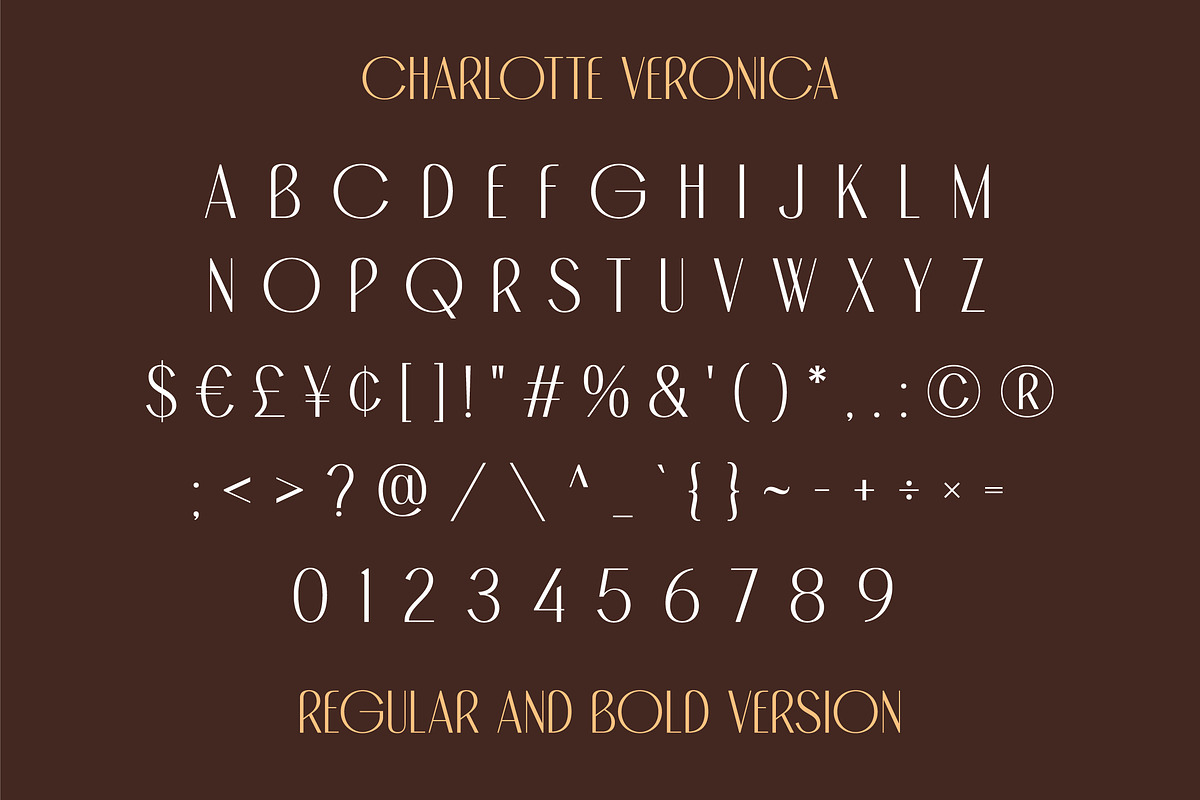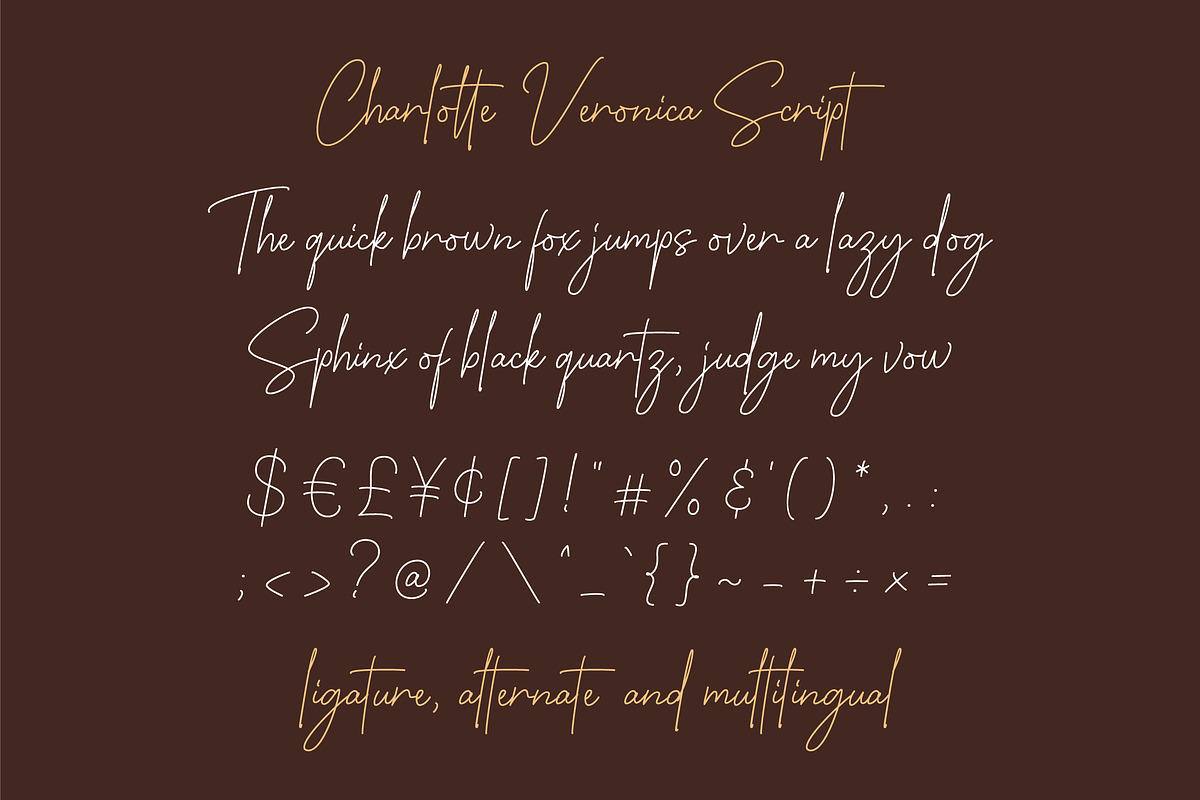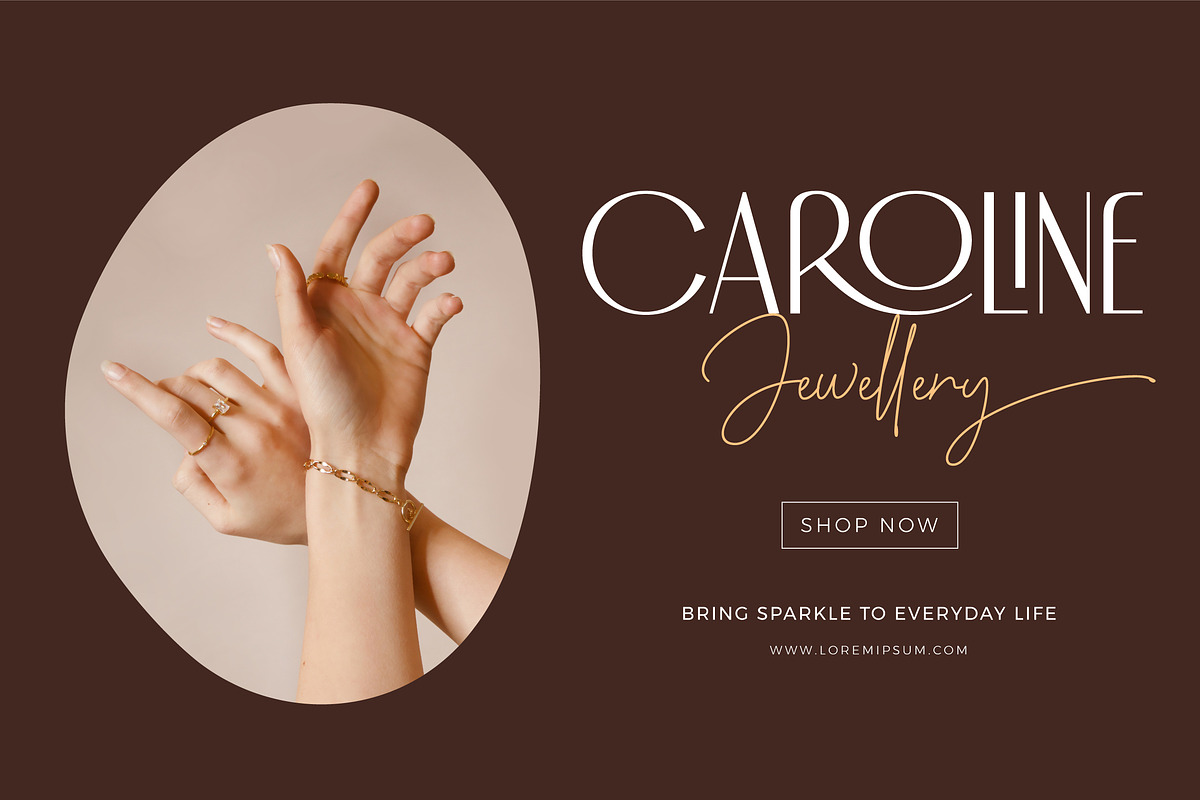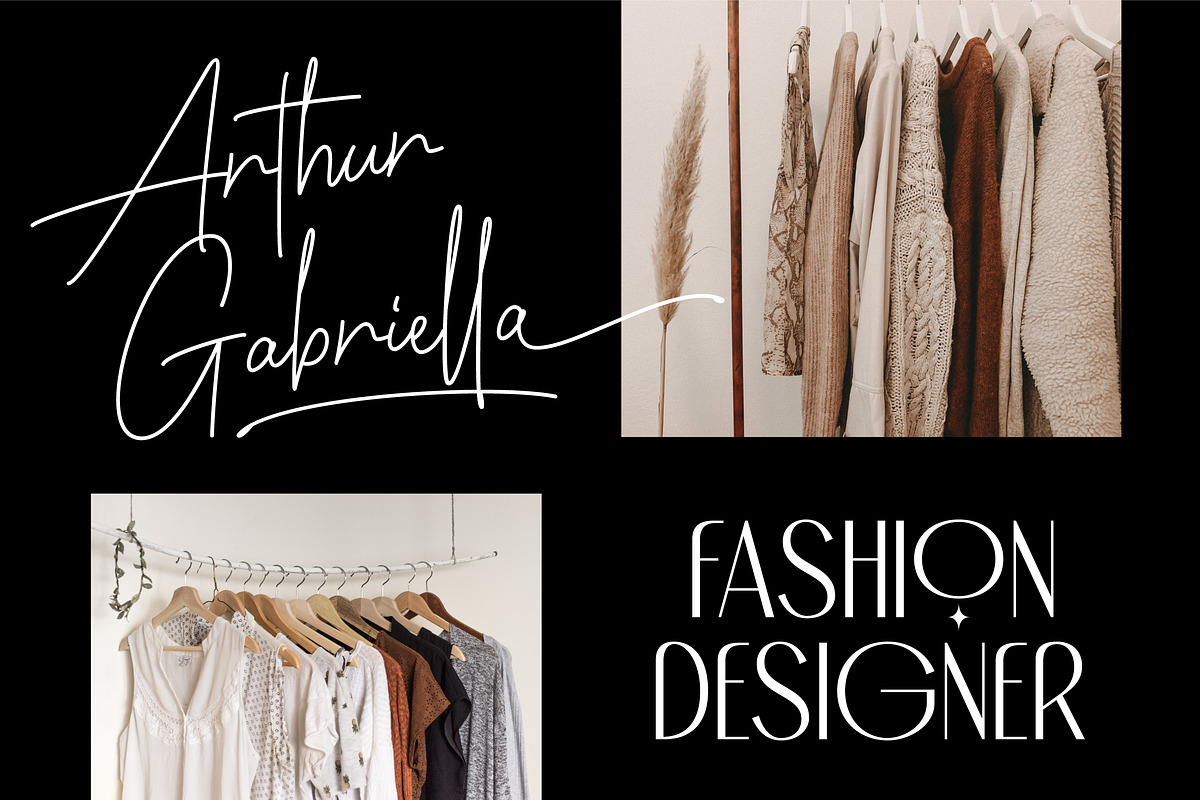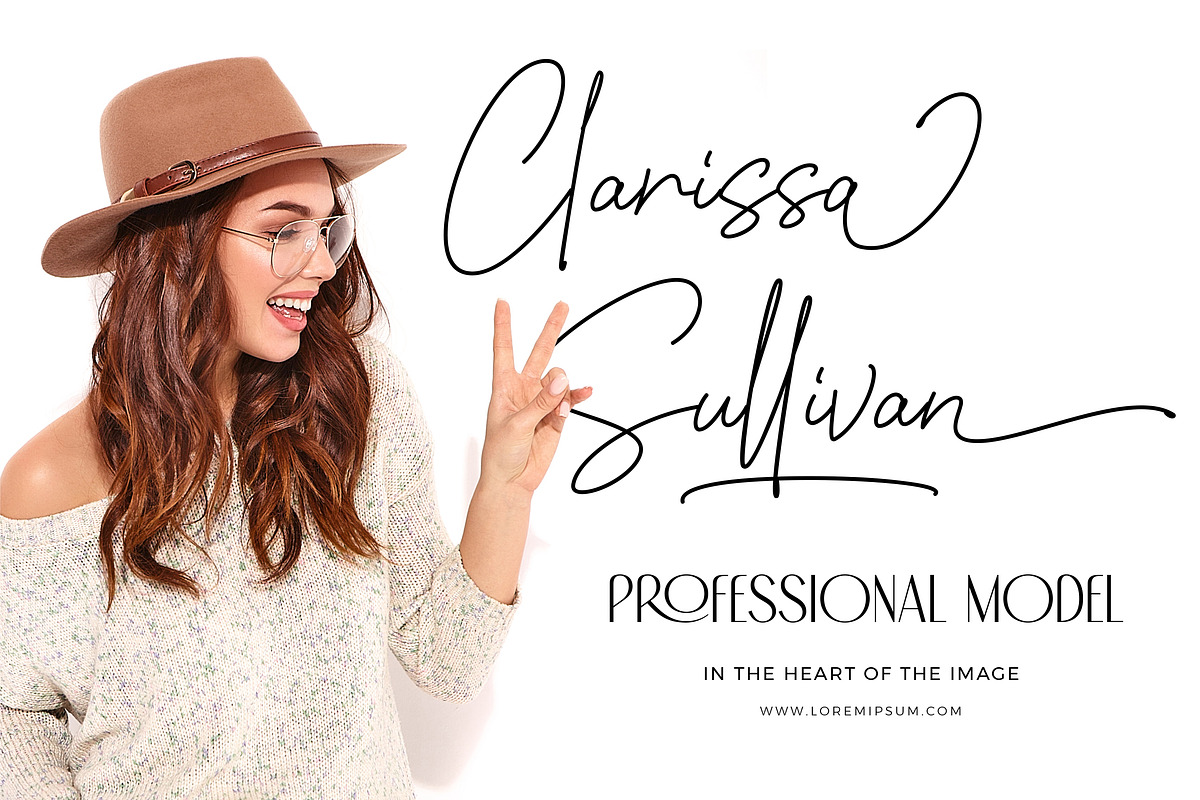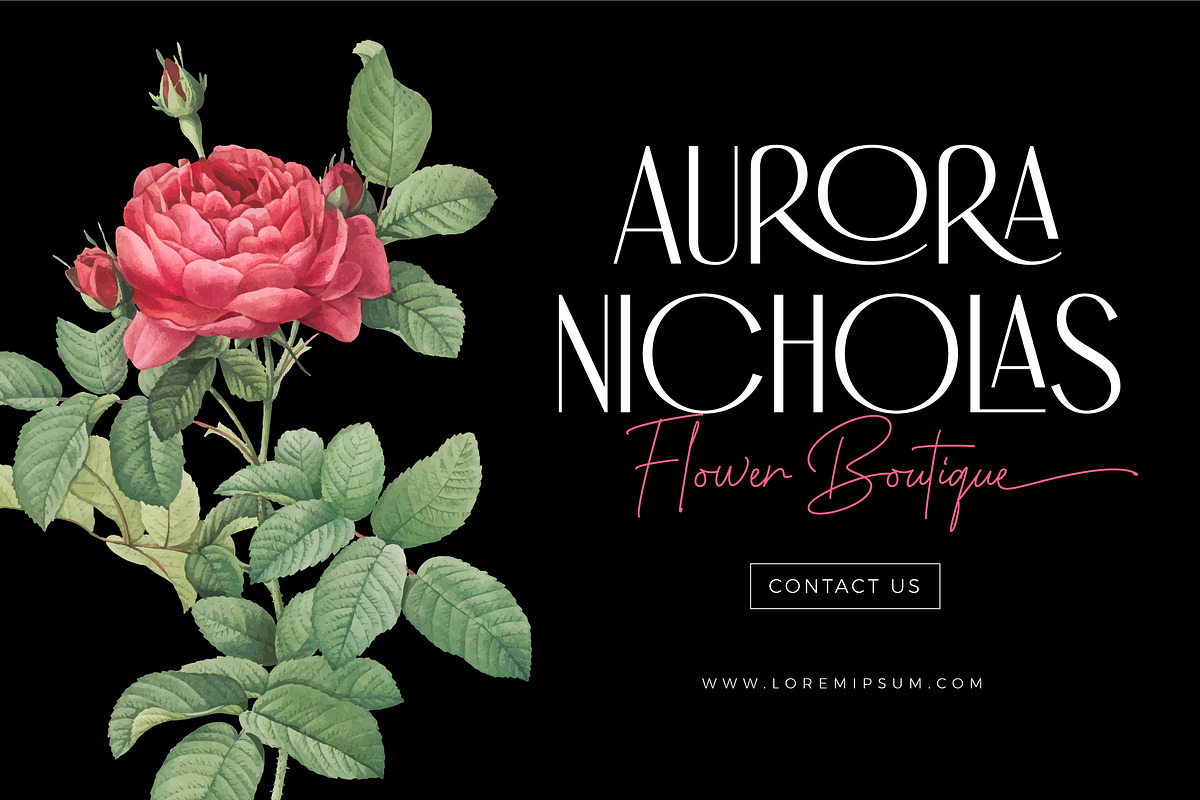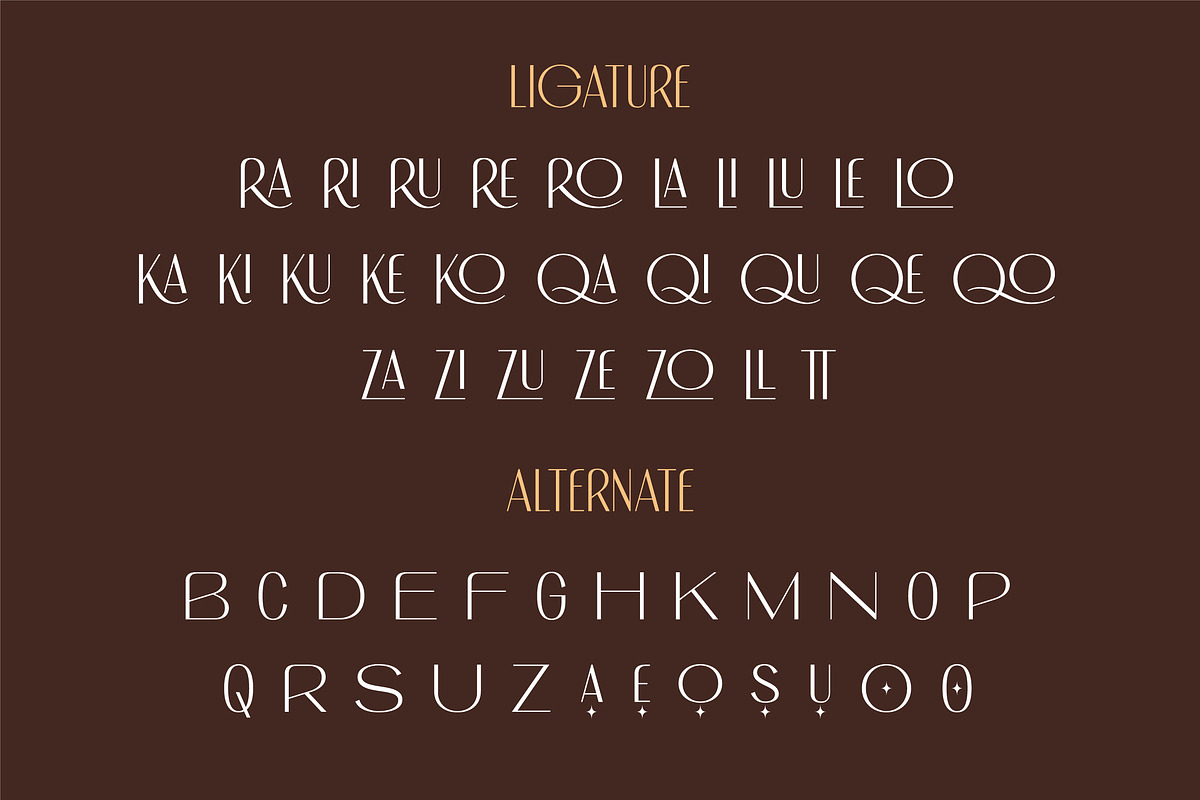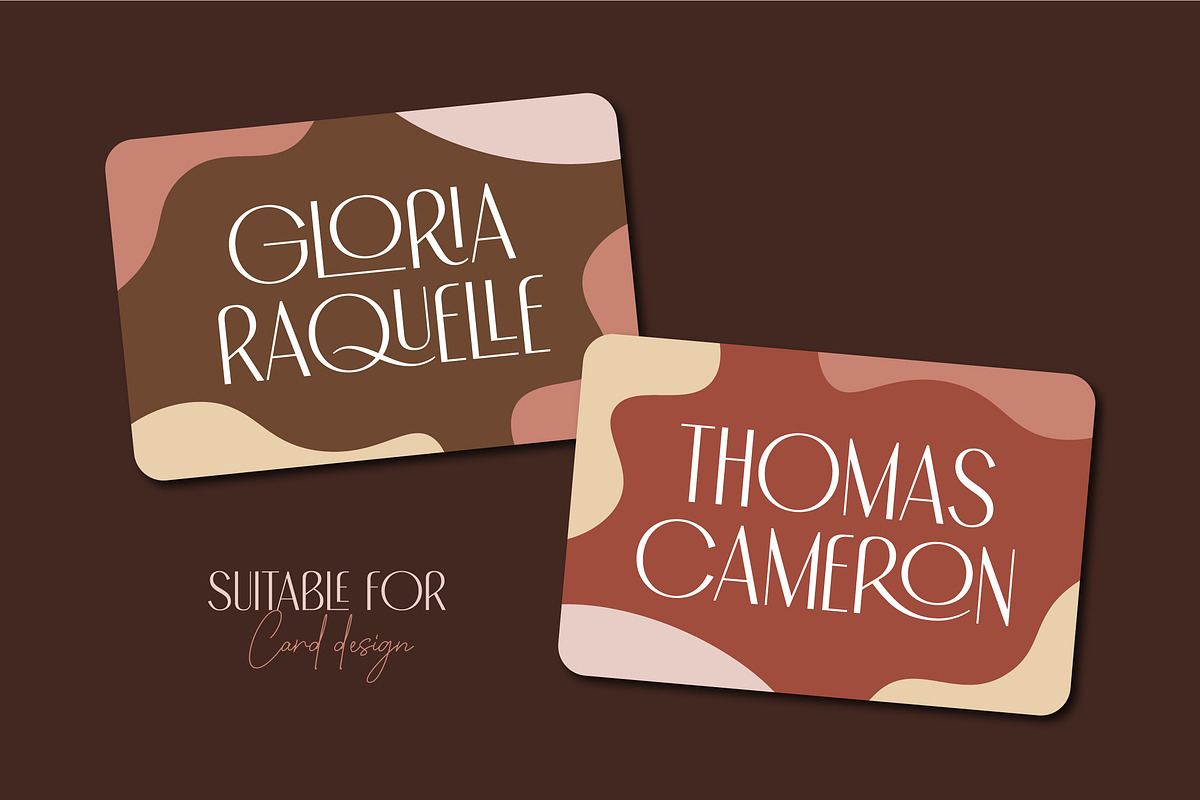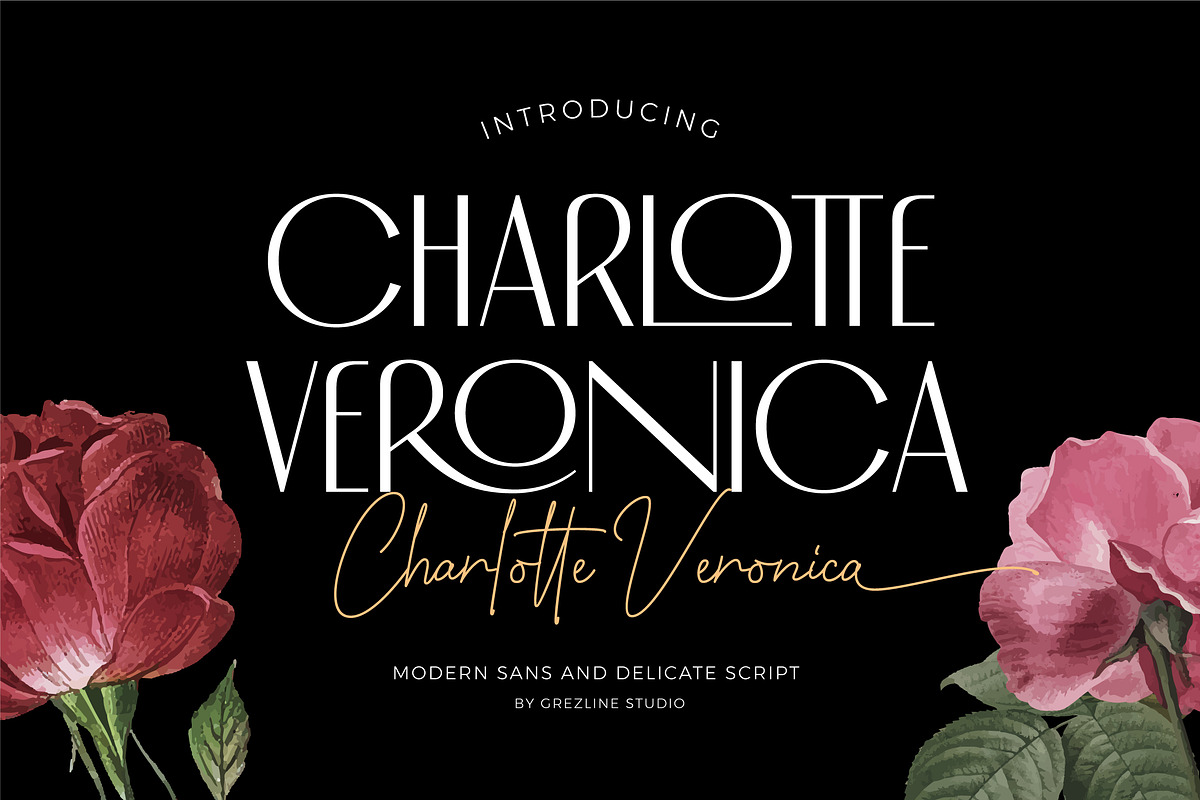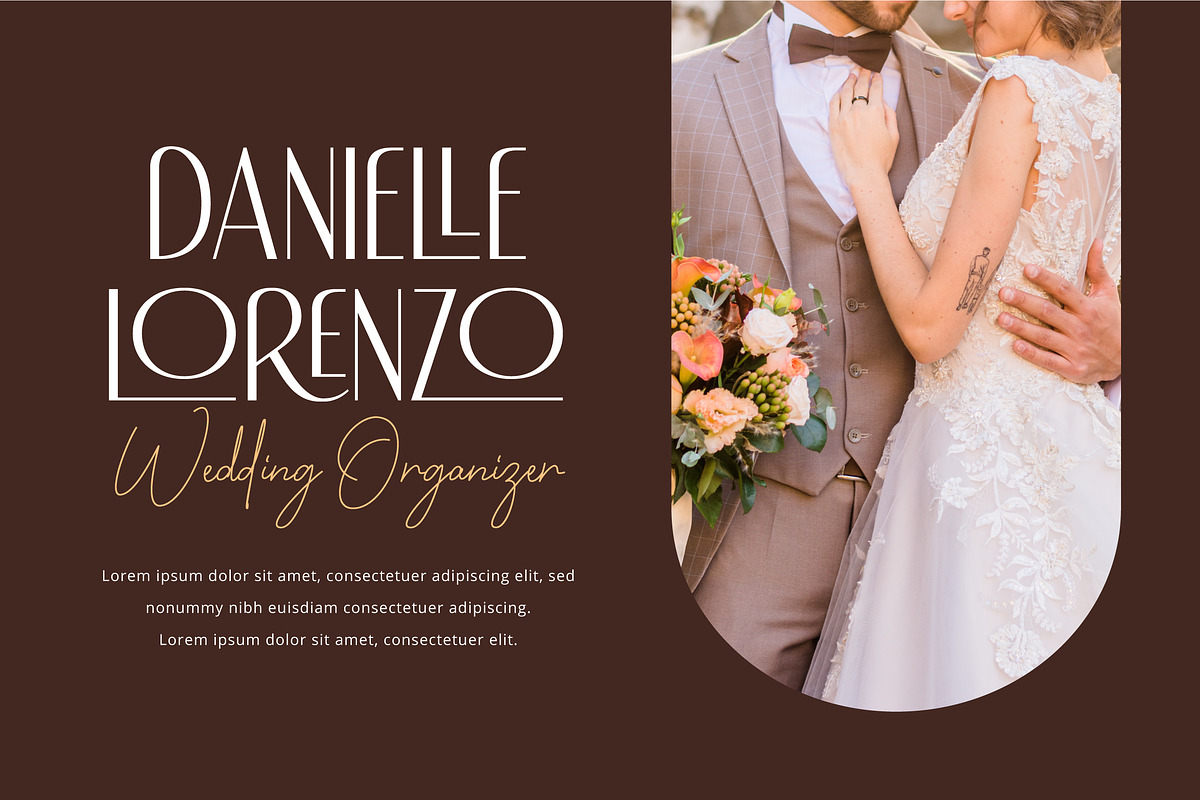
Charlotte Veronica - Font Family
Charlotte Veronica is a display font crafted for fashion design needs. This font family consists of modern sans serif and delicate script, play and combine them to come up with a unique design! Charlotte Veronica is also usable in a wide range of works such as invitations, labels, logos, magazines, books, greeting / wedding cards, packaging, stationery, novels, labels or any type of advertising purpose.
- Alternates, Numerals & Punctuations
- Multilingual Language